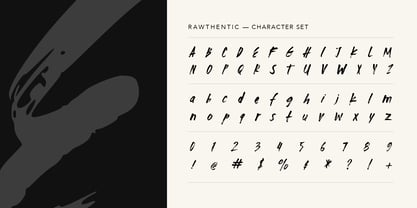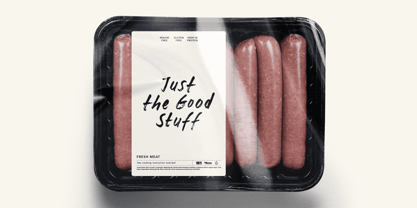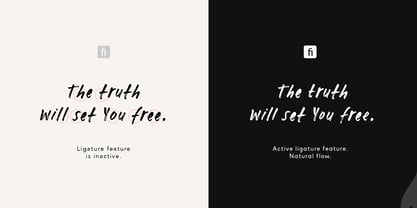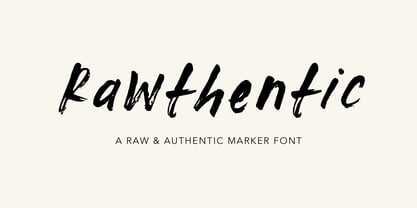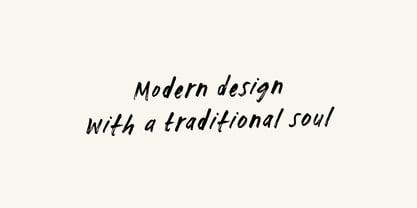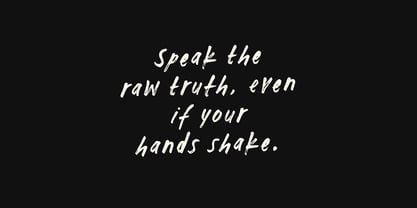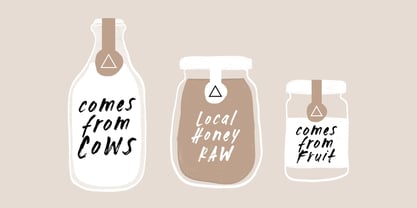
Rawthentic
A família de fontes Rawthentic foi desenhada por Eko Kurniawan e publicada pela Atom. Rawthentic contém 1 estilos. Saiba mais sobre esta família
In a world of pixel-perfect and highly digital designs, we often crave something real, honest, and human. Meet Rawthentic, a raw marker font born from genuine, unedited hand strokes.
More than just a collection of letters, Rawthentic was created to deliver a profoundly strong personal touch to your projects. With its natural slant and authentic textures, every curve and perfectly raw imperfection is carefully crafted so that your message isn't just read—it is remembered and deeply felt by your audience. It speaks the raw truth with a modern energy and a traditional soul.
Speak the truth through your design, because an Rawthentic never fails to capture the heart.
Atom is a line from Letteratom created by a young man from a small village in Indonesia named Eko Kurniawan. Since school, he was interested in graphic design and lettering, so both have become his hobbies since then. Starting from a sketch from paper and digitizing the glyphs one by one to create a font with his style. Focus on script fonts and brushes for your design needs.